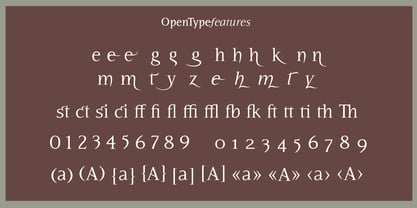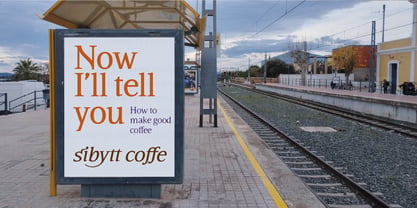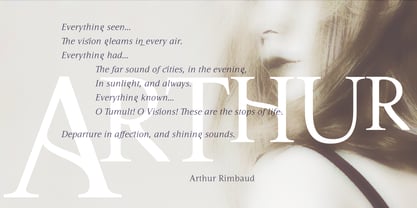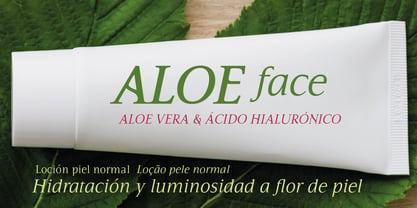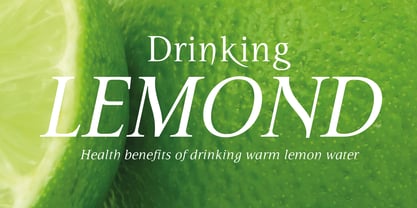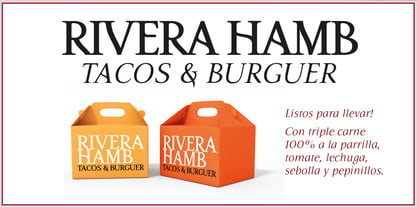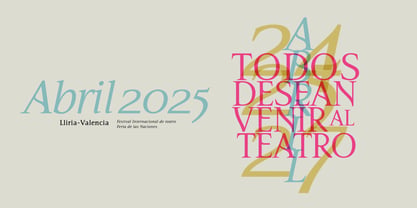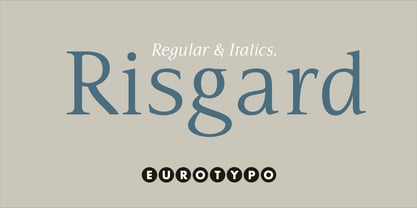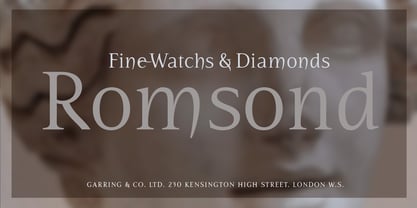
Risgard
by Eurotypo
The Risgard Font Family was designed by Olcar Alcaide and published by Eurotypo. Risgard contains 4 styles and family package options. More about this family
Risgard is a sophisticated and contemporary font family designed to bring style, readability, and versatility to a wide range of design projects. Perfectly suited for magazines, print materials, packaging, and web pages, Risgard excels in both body text and display settings, making it an ideal choice for striking headlines, impactful titles, and engaging editorial layouts.
With its refined serif details and carefully crafted weight variations, Risgard boasts a strong and distinctive personality. The font family includes two expertly designed weights, each accompanied by a matching Italic version. These Italics add a touch of dynamism and elegance, allowing for greater creative expression and typographic contrast.
Designers: Olcar Alcaide
Current Foundry: Eurotypo